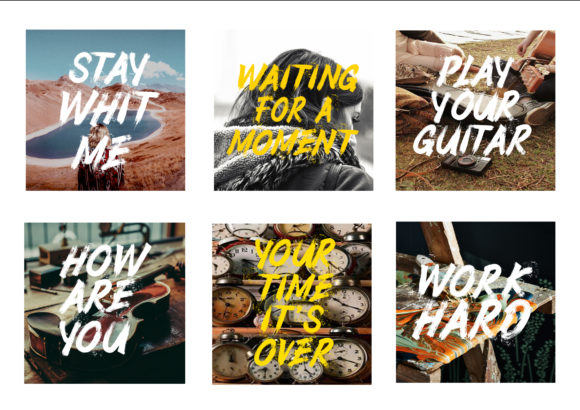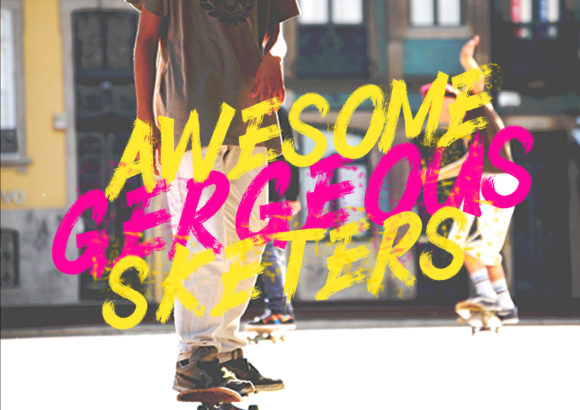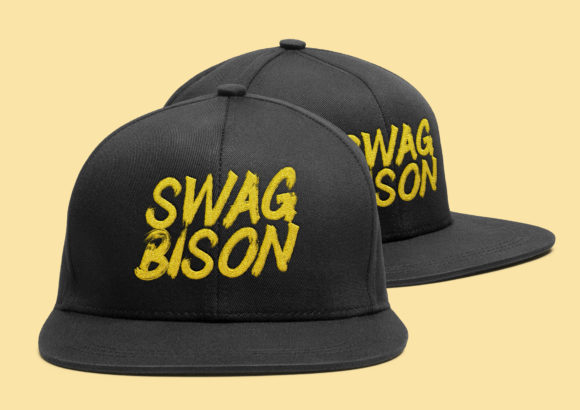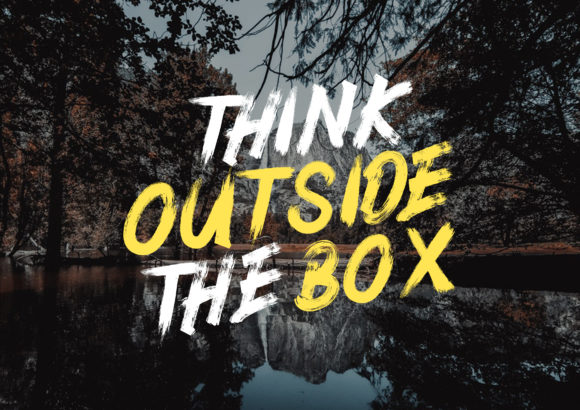
Eagle Thunder Font: Unleash the Power of Unique Typography
In the world of typography, a good font can make all the difference in creating a stunning design. For designers and crafters looking for a striking typeface to elevate their projects, Eagle Thunder Font is an exciting option. This unique textured brush font is designed to add a bold and eye-catching touch to any design. In this article, we’ll dive into the features and benefits of Eagle Thunder Font, and explore how it can be used to take your designs to the next level.
The Eagle Thunder Font: A Unique Textured Brush Font
The Eagle Thunder Font is an irregular, textured brush font that boasts a distinctive character. Its irregular baseline adds a touch of organic and hand-crafted feel, making it perfect for designs that require a personal and creative touch. With Eagle Thunder Font, you can add a bold and striking element to your designs, setting them apart from the rest.
Key Features of Eagle Thunder Font
- Unique Textured Brush Design: The Eagle Thunder Font features a one-of-a-kind textured brush design that gives it a distinctive look and feel.
- Irregular Baseline: The font’s irregular baseline adds a touch of organic and hand-crafted feel, making it perfect for designs that require a personal and creative touch.
- Striking Typeface: The Eagle Thunder Font is designed to make a statement, making it perfect for designs that require a bold and eye-catching typeface.
- Versatile: This font can be used for a wide range of designs, from posters and flyers to social media graphics and branding materials.
Who Can Benefit from Eagle Thunder Font?
Eagle Thunder Font is an excellent choice for designers, crafters, and artists looking to add a unique touch to their projects. Here are a few examples of professionals who can benefit from this font:
- Graphic Designers: Add a bold and striking element to your designs with Eagle Thunder Font, perfect for creating eye-catching posters, flyers, and social media graphics.
- Crafters: Use Eagle Thunder Font to create stunning titles and headings for your handmade products, such as craft tutorials, patterns, and DIY projects.
- Artists: Incorporate Eagle Thunder Font into your artwork to add a touch of personality and whimsy.
Tips and Tricks for Using Eagle Thunder Font
To get the most out of Eagle Thunder Font, here are a few tips and tricks to keep in mind:
- Experiment with Colors: The textured brush design of Eagle Thunder Font looks great with bold and bright colors. Experiment with different color combinations to find the perfect fit for your design.
- Play with Sizes: The Eagle Thunder Font looks great in large and small sizes. Experiment with different font sizes to create visual interest and hierarchy in your design.
- Combine with Other Fonts: Eagle Thunder Font pairs well with clean and simple fonts. Try combining it with other fonts to create a unique and visually appealing design.
In conclusion, Eagle Thunder Font is a unique and versatile font that can add a bold and striking element to any design. With its textured brush design and irregular baseline, it’s perfect for designers, crafters, and artists looking to create eye-catching and creative projects. Whether you’re looking to create a stunning poster, a beautiful craft tutorial, or a bold social media graphic, Eagle Thunder Font is an excellent choice.